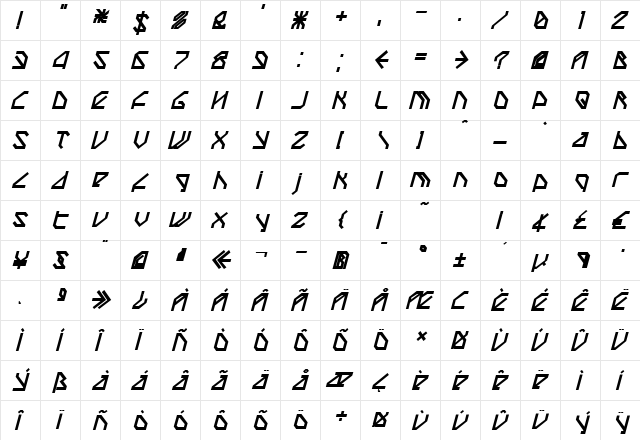
TechstepBlack Oblique Regular
Design Context for TechstepBlack Oblique Typeface
TechstepBlack Oblique channels digital-age aesthetics through its sharp, structured letterforms — ideal for brands that want to signal innovation. The slanted form adds forward momentum and visual energy.